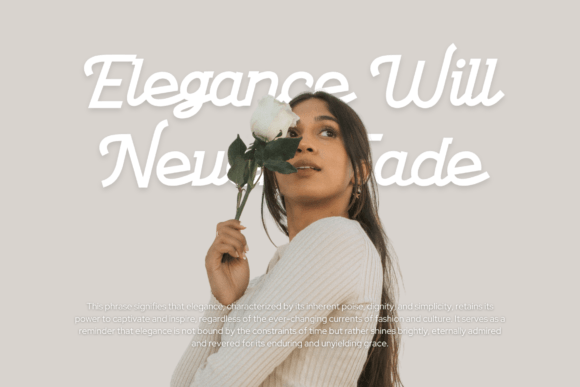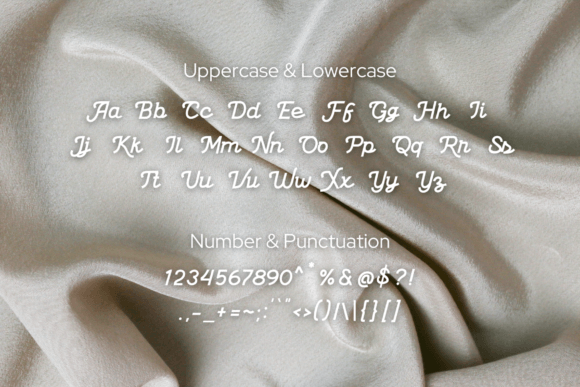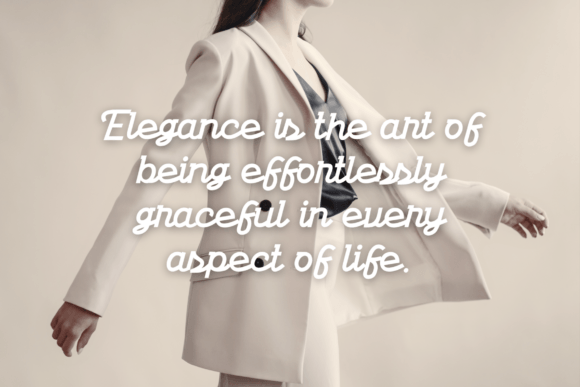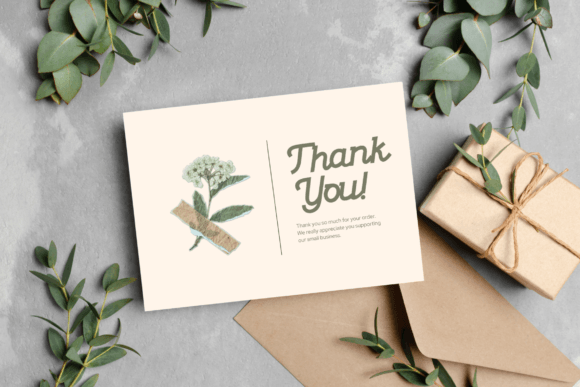
Introduction to Momandi Font
Have you ever been brainstorming ideas for a creative project and suddenly, the perfect font pops into your mind? For designers, this moment can be a game-changer. It’s the spark that sets off a chain reaction of inspiration and brings your vision to life. For me, that moment came when I stumbled upon the Momandi Font.
This sweet and friendly handwritten font is a design resource that’s hard to resist. With its cute and versatile style, it’s the perfect addition to any project that needs a fun touch. Whether you’re writing wedding invitations, creating cards, or working on a design project, the Momandi Font is sure to bring a smile to your face.
Key Features of Momandi Font
- Unique, hand-crafted design with intricate details and subtle nuances, making it a standout choice for designers
- Perfect for use in a variety of creative projects, from graphic design and digital art to print materials and branding
Honest Review: Momandi Font
As a designer, I’m always on the lookout for high-quality fonts to elevate my creative projects. Recently, I had the chance to work with the Momandi Font, and I’m excited to share my honest review.
Here’s what I like about the Momandi Font: ✨
- Unique design: The Momandi Font has a distinctive, hand-drawn feel that adds a personal touch to any design project.
- Not ideal for large-scale use: While the font is great for smaller designs, it may not be suitable for large-scale use due to its hand-drawn nature.
Overall, I’m impressed with the Momandi Font and would recommend it to designers looking for a unique, high-quality font for their creative projects. With its free download and transparent vector graphics, it’s a valuable resource that’s definitely worth checking out.
Tips for Getting the Most Out of Momandi Font
To get the most out of the Momandi Font, experiment with different font sizes, colors, and styles to achieve a unique design. You can also combine the font with other design resources to create a visually appealing project.
The Momandi Font is perfect for creative projects, such as logos, branding materials, and social media graphics. Its high-quality design and transparent background make it an ideal choice for designers and non-designers alike.